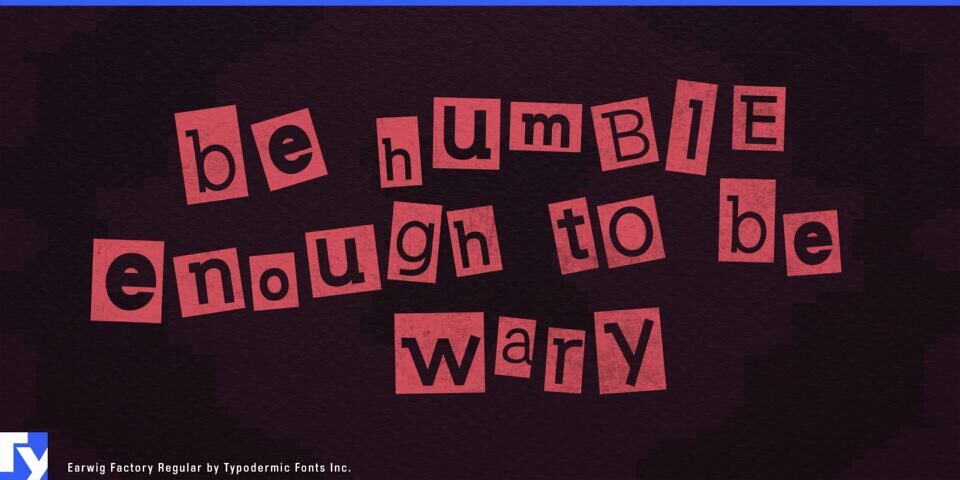
Earwig Factory is a wild, psychedelic typeface from Typodermic Fonts that transforms text into a carnival of chaos and creativity. With jumbled shapes, layered styles, and OpenType-powered randomness, it ensures every use feels unique.
Perfect for designers who defy convention, it supports many Latin-based languages and invites bold expression across cultures. Whether casting playful shadows or reshaping rules into spectacle, Earwig Factory turns typography into performance—vivid, eccentric, and unforgettable.